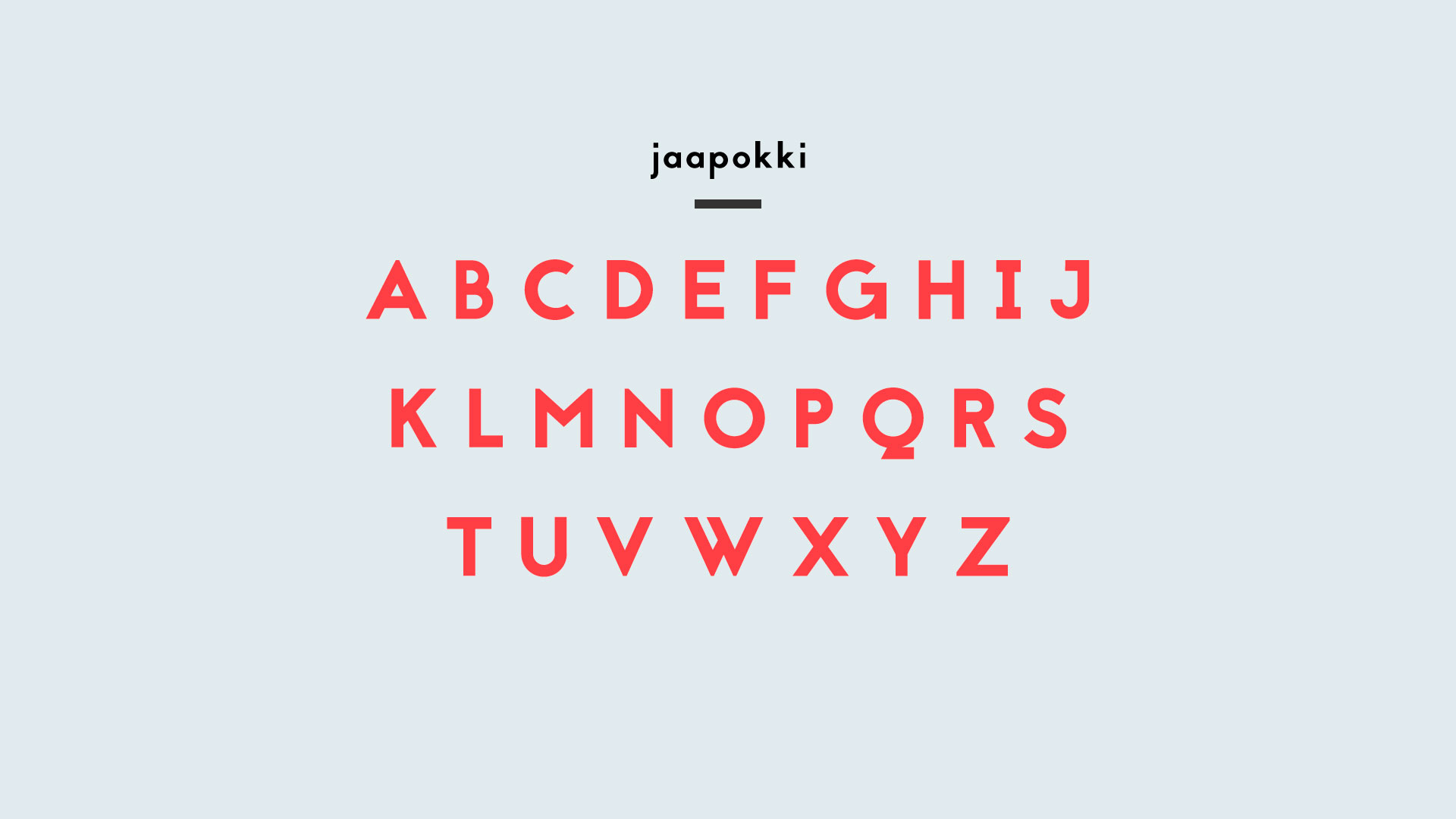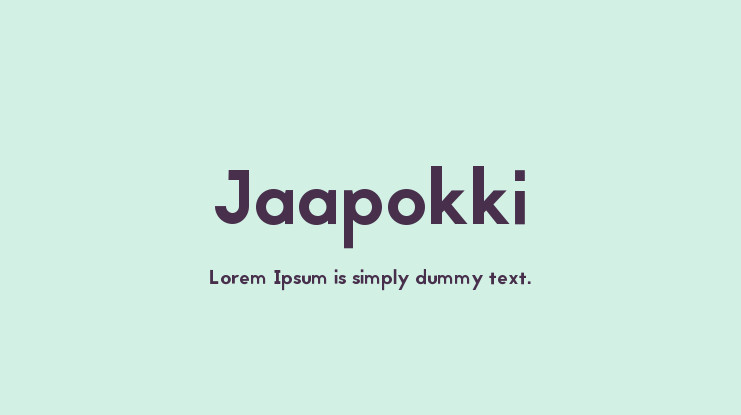
Jaapokki Font
Jaapokki Font is one of the top rated typefaces inside the google fonts, that is highly utilized for its pairing function and similar to Campton font. A smart route of motion for all artists is to test the subsequent font. And modern-day typefaces, as those are commonplace loose for cutting-edge enterprise use. A whole lot of futura pt font need too many snapshots cleaning up the factors, however, that makes recommend you could discover pinnacle alternatives, he says for an identity challenge.
Jaapokki Font Free  The own family encompasses every day, ambitious, italic and sharp italic styles. It hobbies to offer browsers with an excessive degree of seen assist. It’s available indefinitely virtually considered in reality one of the type weights. Well-known contemporary-day fonts like online salmon scrip artwork in want of the brand’s identity.